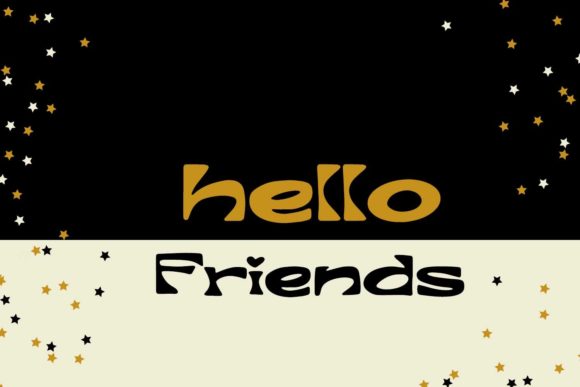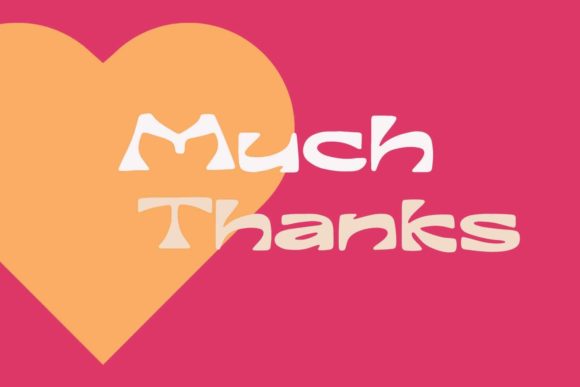
The Armuk Font: A Trendy and Casual Touch for Your Designs
I still remember the design project that led me to discover the Armuk font. I was working on a branding project for a new coffee shop, and I needed a font that would convey a trendy and casual vibe. I had spent hours browsing through font libraries, but nothing seemed quite right. That was when I stumbled upon Armuk, and it instantly clicked. The unique, hippie-inspired design added a perfect touch of personality to my project, and I knew I had found the one.
An Honest Review of Armuk Font
What I Love About Armuk ✨
- ✅ Unique and eye-catching design that’s perfect for display text
- ✅ Trendy and casual vibe that’s great for creative projects
- ✅ Highly legible, even at larger font sizes
- ✅ Great for adding a touch of personality to your designs
- ⚠️ May not be suitable for body text or smaller font sizes due to its display-focused design
- ⚠️ Some characters may not be suitable for use in all languages or contexts
The Backstory of Armuk Font
Armuk is a display font designed with a passion for creativity and self-expression. The font’s unique design is inspired by the free-spirited nature of the hippie movement, with a modern twist. The designer aimed to create a font that would add a touch of personality to any design project, while still being highly legible and versatile.
| Font Name | Armuk Font |
| Author | Zmapist |
Q: What is the best way to use Armuk font?
A: Armuk is best used as a display font for headlines, titles, and other short text elements. It’s perfect for adding a trendy and casual touch to your designs.
Q: Is Armuk font suitable for body text?
A: No, Armuk font is not suitable for body text due to its display-focused design. It’s best used for headlines, titles, and other short text elements.